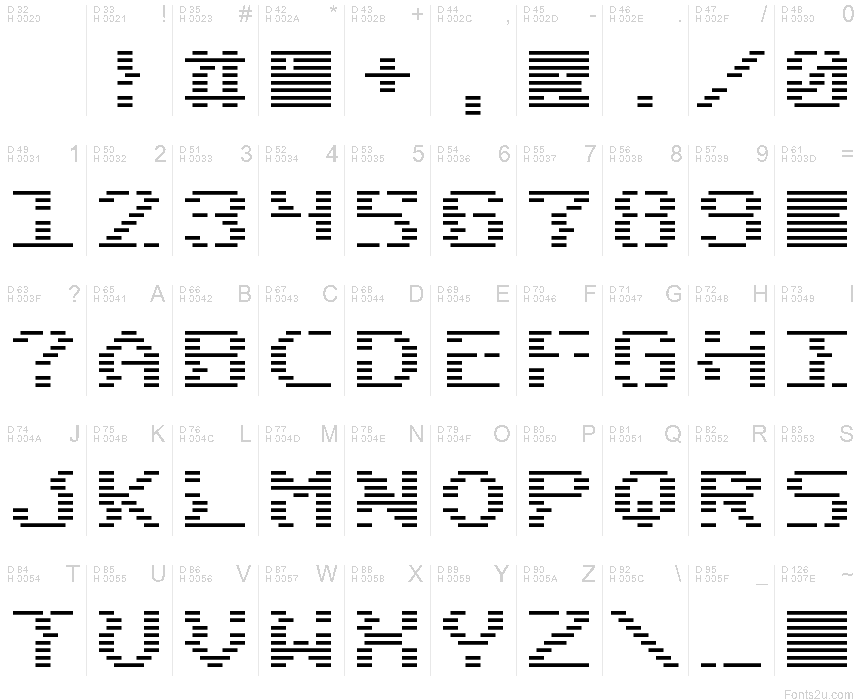
Scanlines Regular
SCANLINES by Coookie Type
Scanlines are a dream of glitch art enthusiast. Distortion makes a fan's arms positively tickle. What about distorted scanlines? We won't tell, but show you some.
“Scanlines” was built with FontStruct
Designer description: This is an experiment; I used only one composite brick to come up with such a font.
~ - * are the filled chars.